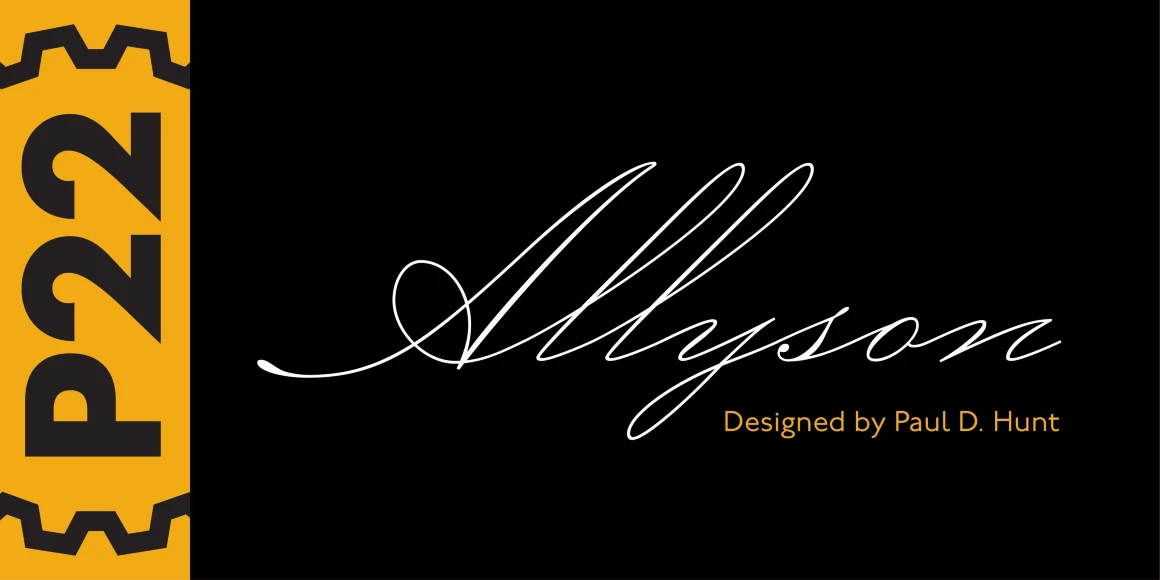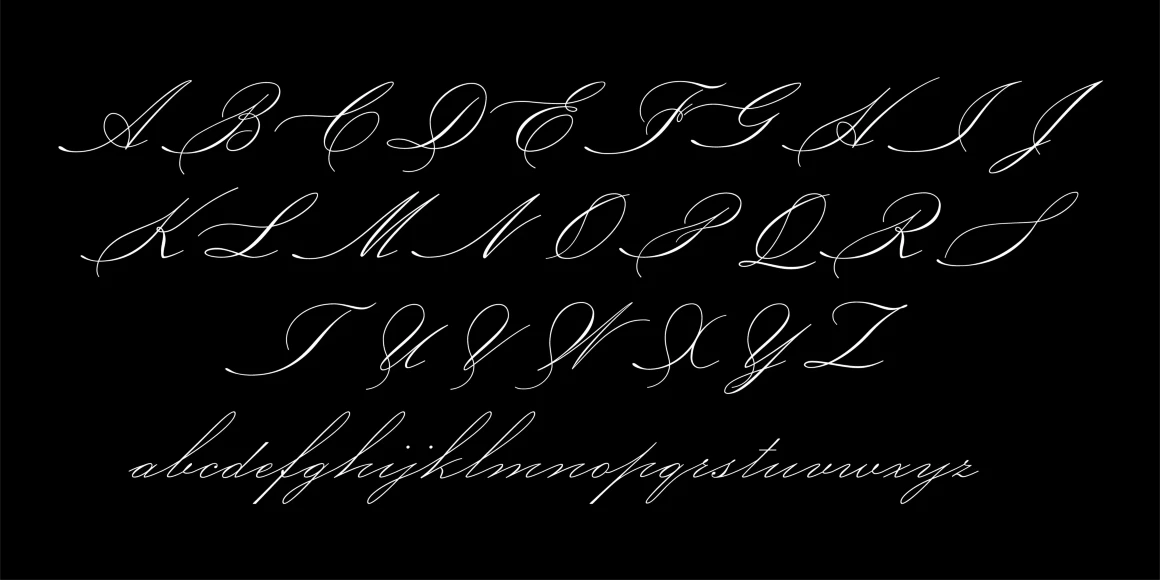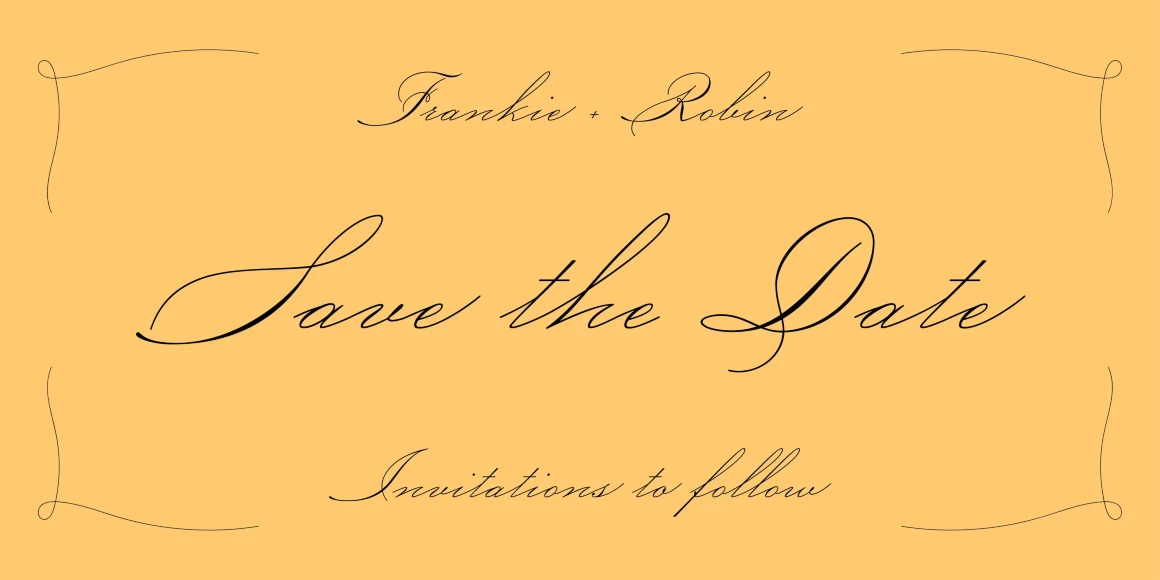
Allyson
P22 Allyson is based on an old metal font by Barnhart Bros. & Spindler named Hazel Script. This font is perfect for elegant invitations and certificates.
Designed by Paul D. Hunt